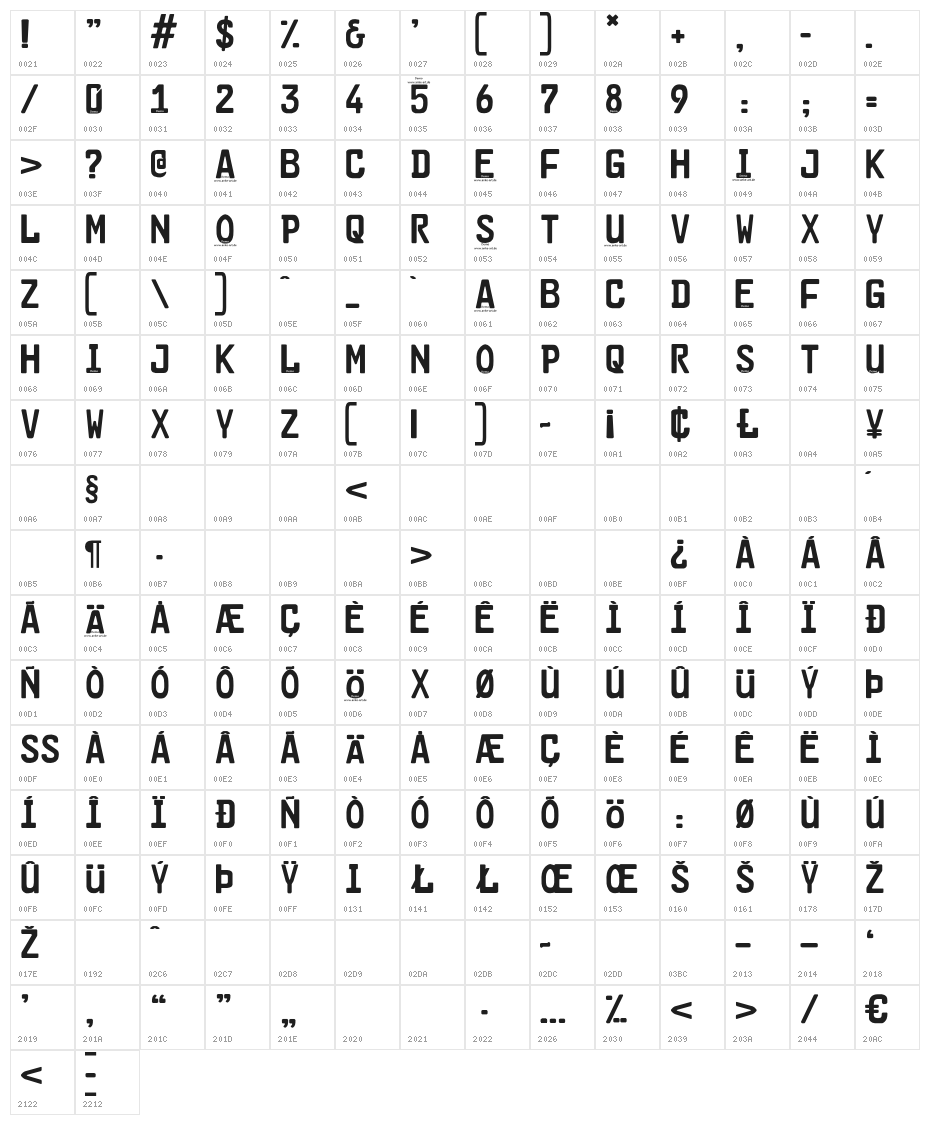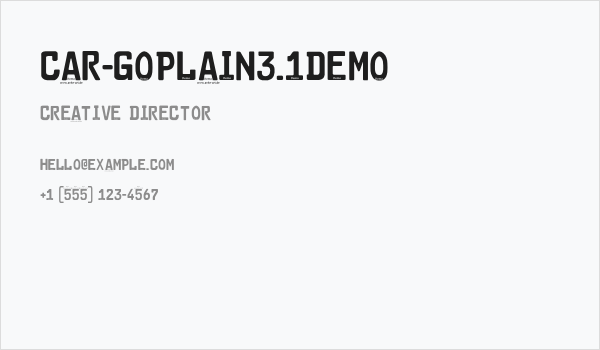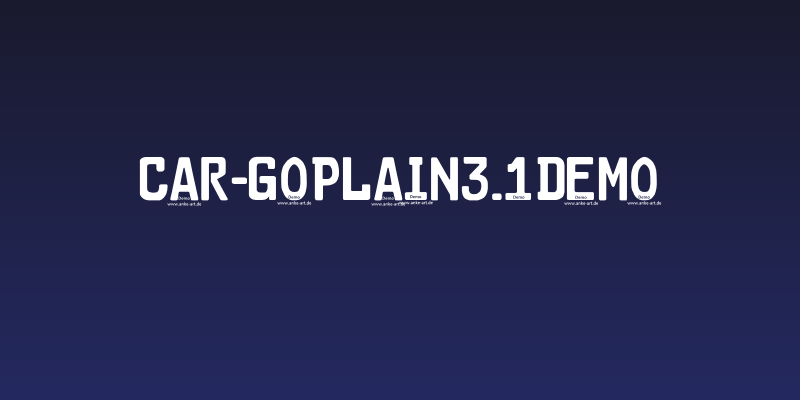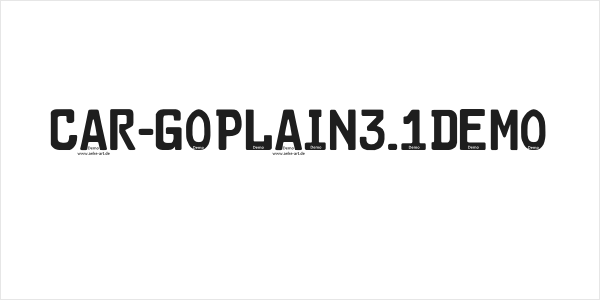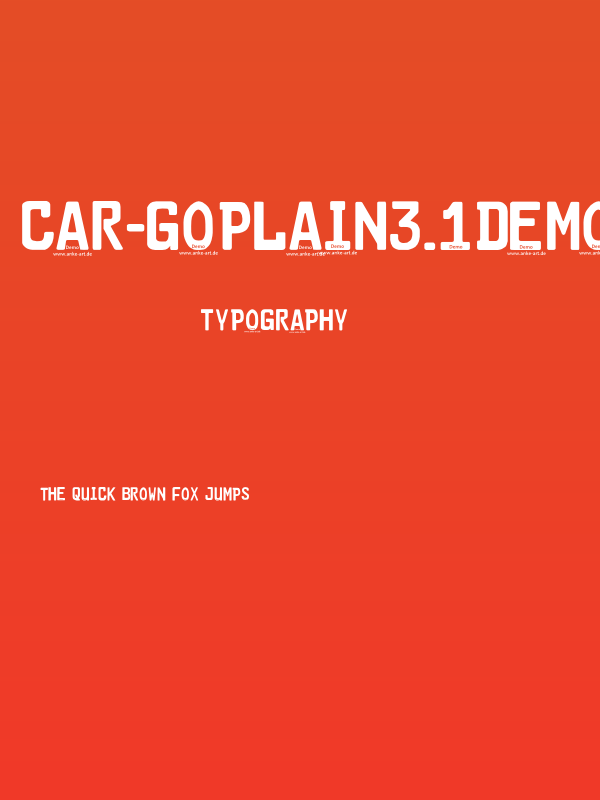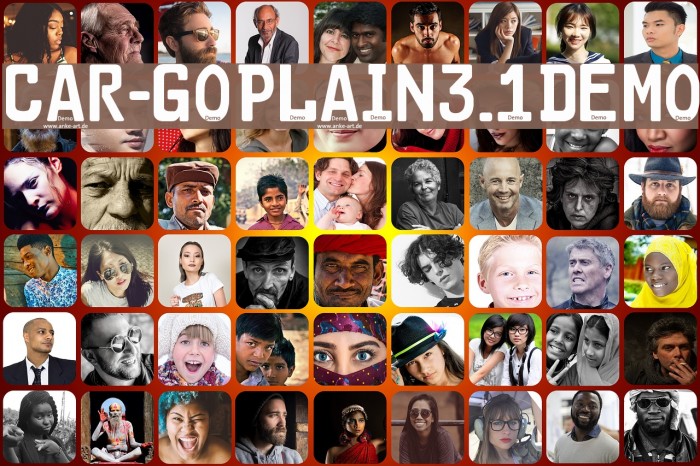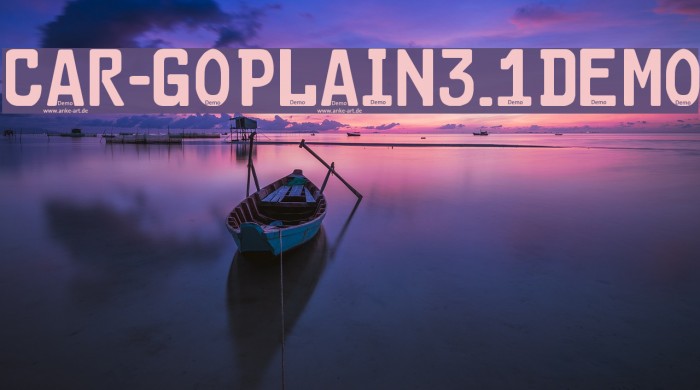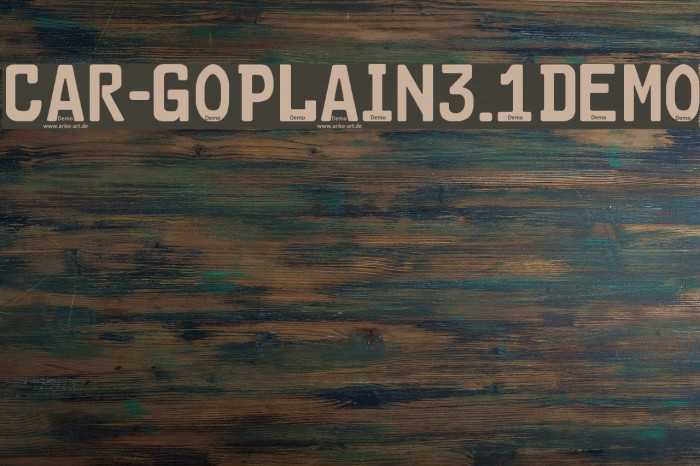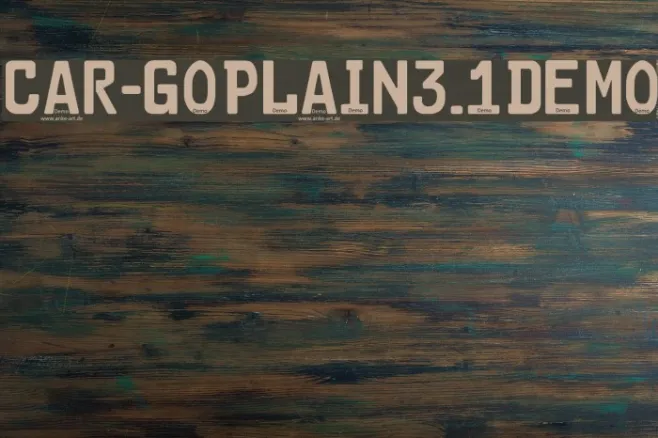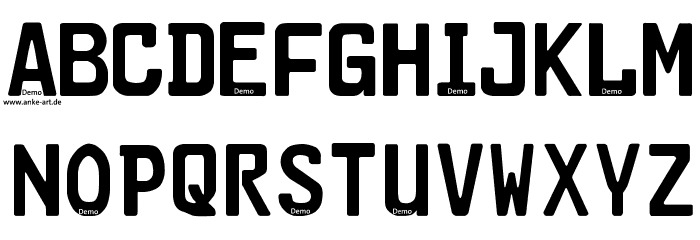
Car-GoPlain3.1Demo Font
Car-GoPlain3.1Demo Description
This font features a bold and robust design with a modern, industrial feel. The characters are uniformly thick, with a slight geometric influence that gives them a sturdy appearance. The uppercase letters are particularly striking, with a squared-off style that maintains readability while adding a touch of uniqueness. The lowercase letters follow a similar design ethos, ensuring consistency across the typeface. Numbers are clear and bold, making them suitable for impactful displays. The special characters are well-integrated, maintaining the overall aesthetic of the font. This typeface is ideal for projects that require a strong visual presence.
| Use Case | Headlines, Logos, Signage |
| Proposed Projects | Ideal for branding, signage, posters, and any project requiring a strong, modern typeface. |